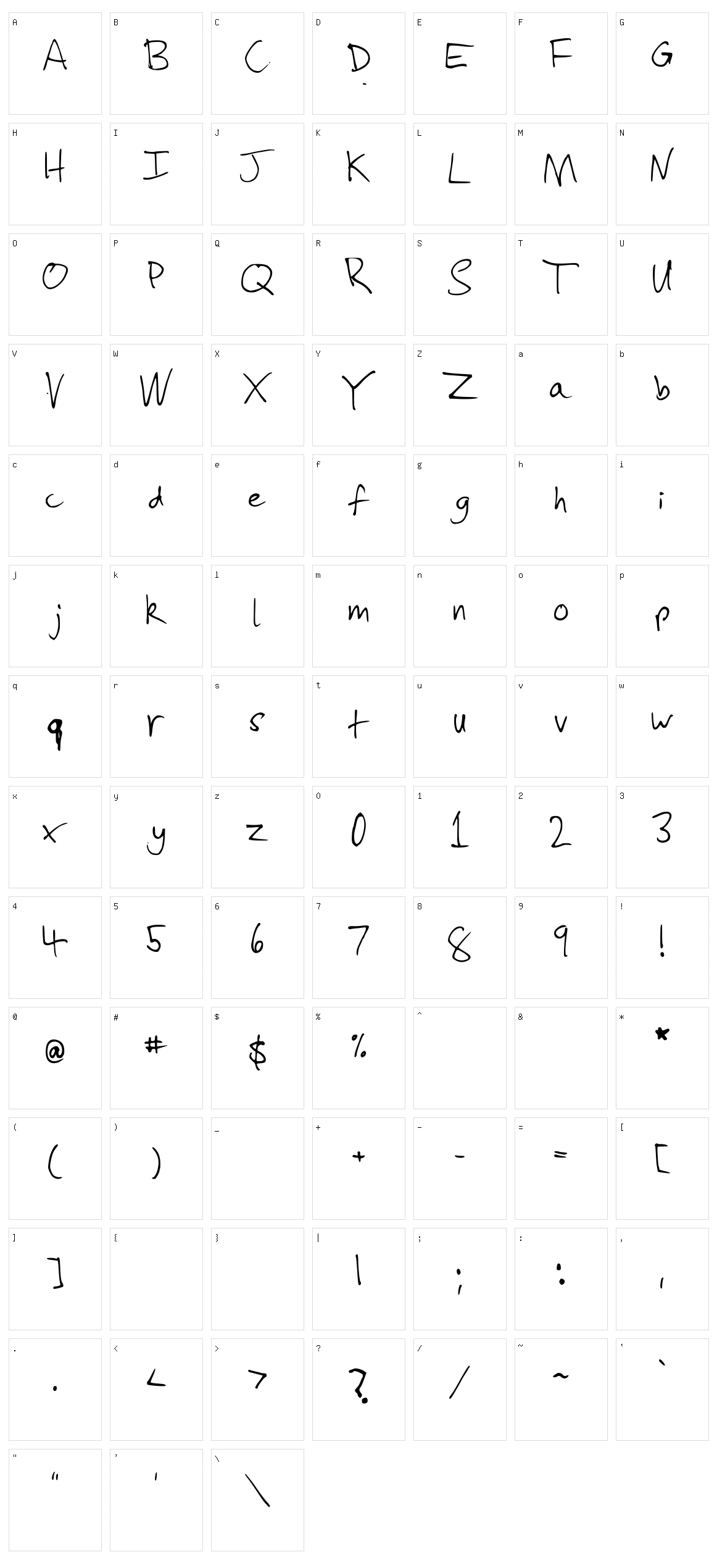
The free font Slevdog 2 is carefully designed by Michael Slevin, showcasing a thoughtful balance of creativity and usability and falls under the Script font style. When you download the ZIP file, it contains only 14.31 KB of font files, making it lightweight and quick to download. Please review the license details below to understand permitted usage and distribution rights. If license information is not available, we recommend using this font for personal projects only or contacting the author directly for commercial usage permissions.